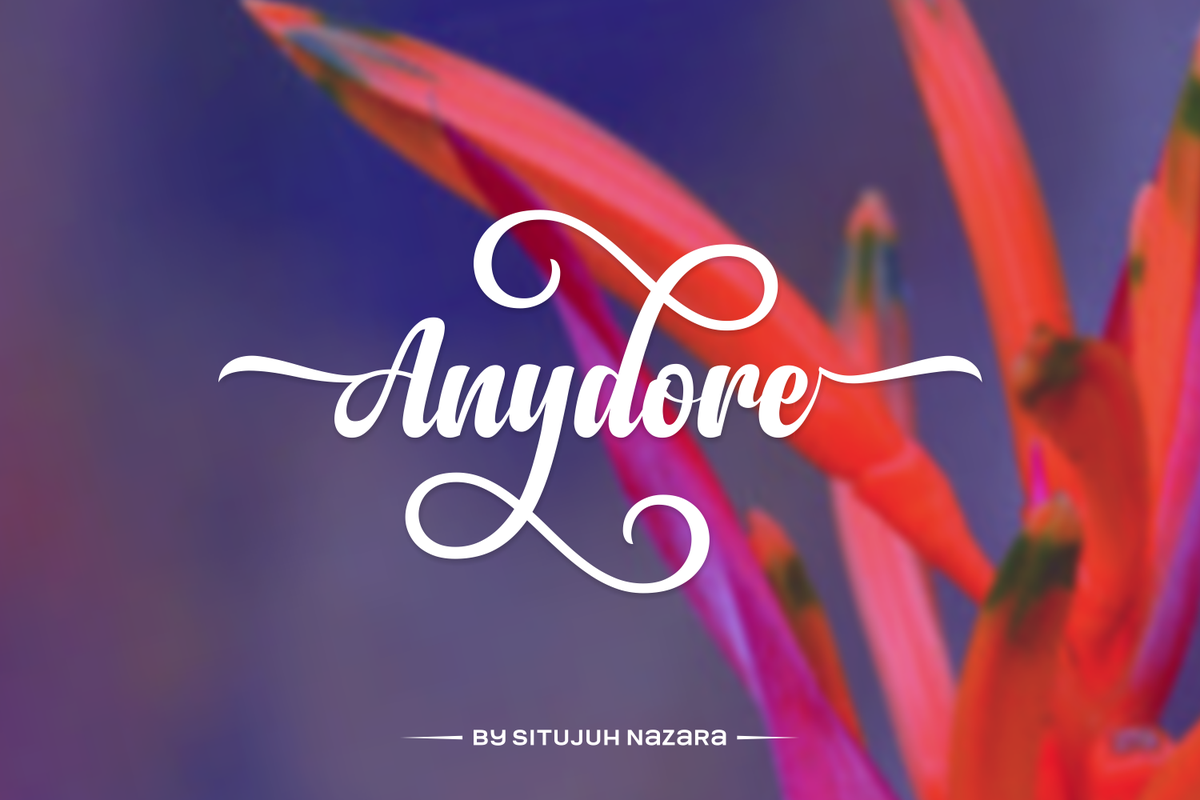
The Power of Handwritten Expressions: Unleashing Creativity with Anydore Font
You’ve sat down at your desk, staring blankly at a blank page, and the words just aren’t flowing. You grab a pen and start doodling, letting your hand wander across the paper in search of inspiration. This is the moment when creativity takes hold, and the Anydore Font was born from this very same spirit.
The Anydore Font is a beautiful handwritten script created by Situjuh Nazara, designed to bring a touch of elegance and personality to your designs. With its extensive range of alternate characters, this font is perfect for those who want to add a unique twist to their work. Whether you’re a seasoned designer or just starting out, the Anydore Font is a valuable tool that can help you stand out from the crowd and bring your ideas to life.
Key Features of Anydore Font
- Font Family: Anydore Font comes in a single font family with multiple styles (Regular, Italic, Bold, Bold Italic) to cater to various design needs.
- Unique Characteristics: The font features a unique, hand-drawn style with intricate details and subtle flourishes, giving it a distinctive and elegant appearance.
- Character Set: The font includes a comprehensive character set, including Latin, Cyrillic, and Greek alphabets, as well as a range of punctuation and symbol characters.
Overall, I was quite impressed with the Anydore Font, but like any font, it has its strengths and weaknesses.
- The font’s unique and elegant design makes it perfect for luxury brands, high-end fashion, or any project that requires sophistication.
- It’s highly legible, even at small font sizes, making it suitable for body text or headings.
- The font’s weight and line variations offer a good range of options for designers to choose from.
- The font’s lack of support for certain languages, such as Asian languages, may limit its use in global projects.
- The font’s design may not be suitable for projects that require a more playful or casual tone.
Overall, I’d give the Anydore Font 4 out of 5 stars. While it has some limitations, its unique design and versatility make it a solid choice for designers looking to add some sophistication to their projects.
Getting the Most Out of Anydore Font
To get the most out of Anydore Font, consider the following tips:
- Use Anydore Font for headings and titles to create a unique and eye-catching design.
- Pair Anydore Font with other fonts to create a visually appealing contrast.
- Experiment with different font sizes and colors to create a cohesive design.
Anydore Font is commonly used in:
- Branding and logos.
- Graphic design and marketing materials.
- Web design and development.
Alternatives to Anydore Font for Designers
Playfair Display is a luxurious, elegant serif font ideal for use in titles, headings, and other prominent text elements. It features intricate flourishes and high contrast between thick and thin lines, making it perfect for creating a sense of sophistication and refinement. Compared to Anydore Font, Playfair Display has a more formal and traditional feel, while Anydore Font is more modern and minimalist.
Great Vibes is a beautiful, elegant script font perfect for use in invitations, quotes, and other creative text elements. It features flowing, cursive lines and a subtle, hand-written feel, making it ideal for adding a touch of personality and whimsy to your designs. Compared to Anydore Font, Great Vibes has a more organic and expressive feel, while Anydore Font is more geometric and modern.